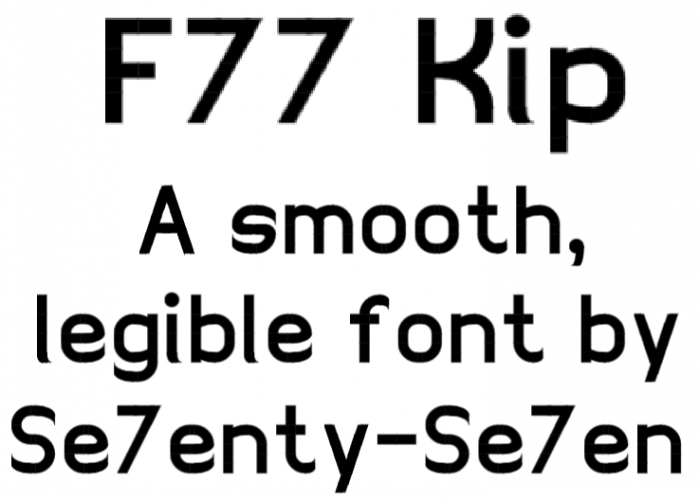
Nice k, but the t tail is too long, and that x is somewhat strange. Also letters with rings have their rings way too close to the letters themselves.
When I see that a glyph will look like a mutant 8 when a diacritic is present, I choose not to include that letter at all. And why can't the effective height be reduced in post production?
Lowering the ring is a technique many fonts have to use to avoid increasing their effective height (especially pixel fonts).” And they sometimes shorten the height of the letter as well to make it fit inside the grid...